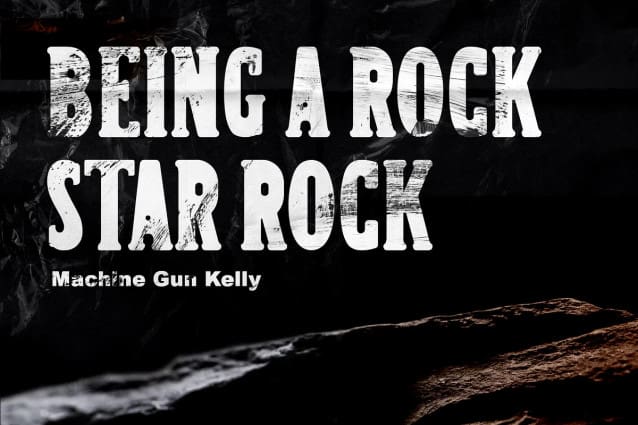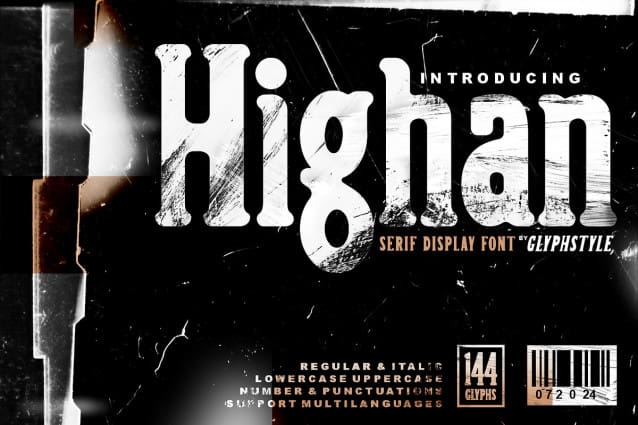
Highan​​​​​​ Font
Highan​​​​​​ Font is a non-rigid serif display font. The display has blunt angles, so the letters look smooth without leaving the impression of a firm serif font. Regular and italic versions available
Highan Font is perfect for branding projects, logos, wedding designs, social media posts, advertisements, product packaging, product designs, labels, photography, watermarks, invitations, stationery, and any project that requires a modern serif font.